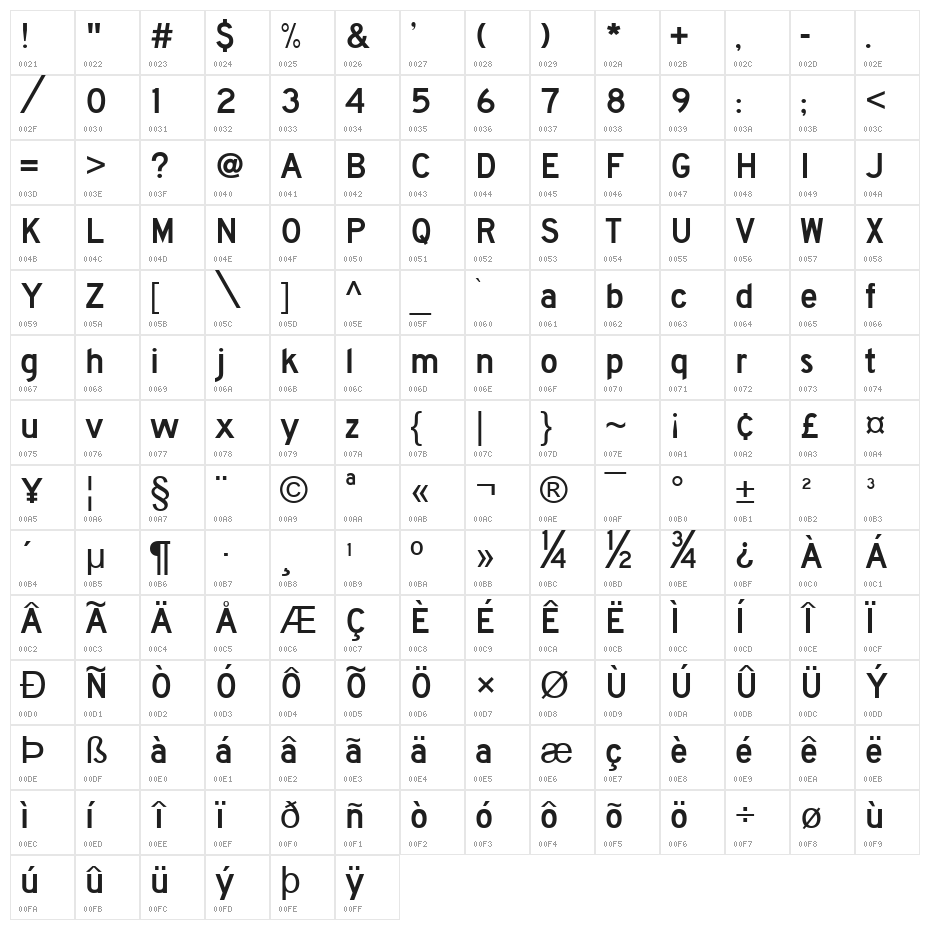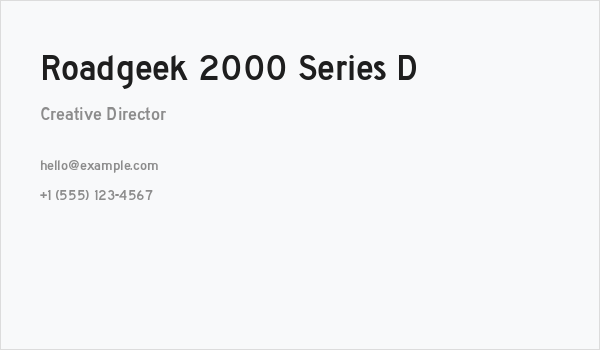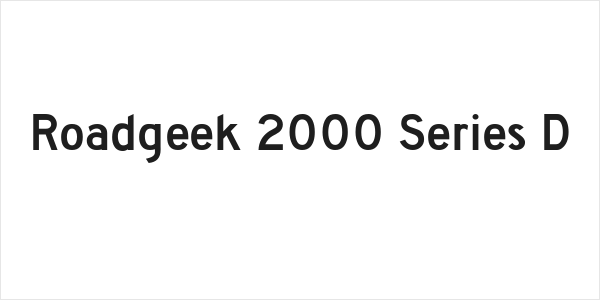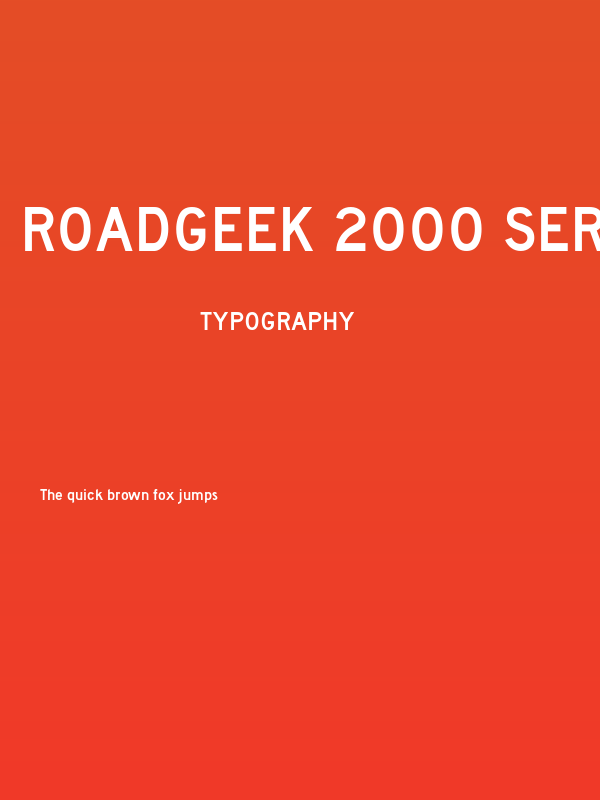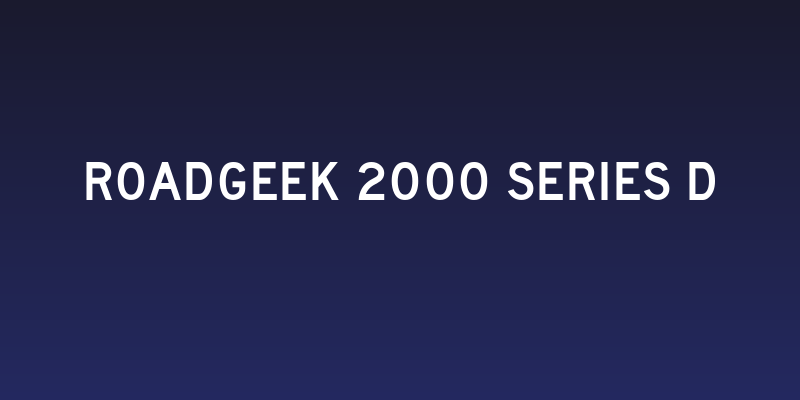
Roadgeek 2000 Series D Font
Roadgeek 2000 Series D Description
This font features a clean, modern sans-serif style with uniform stroke widths, making it highly legible and versatile for various applications. The characters are well-proportioned, with a slightly condensed appearance that maximizes space efficiency without sacrificing readability. The uppercase letters are bold and assertive, while the lowercase letters maintain a consistent design that complements the overall aesthetic. Numerals are clear and distinct, ensuring easy recognition. The special characters are straightforward and match the font's overall style, providing a cohesive look across all text elements.
| Use Case | Headlines, Signage, Digital Interfaces |
| Proposed Projects | Ideal for road signage, informational displays, digital interfaces, and branding materials. |